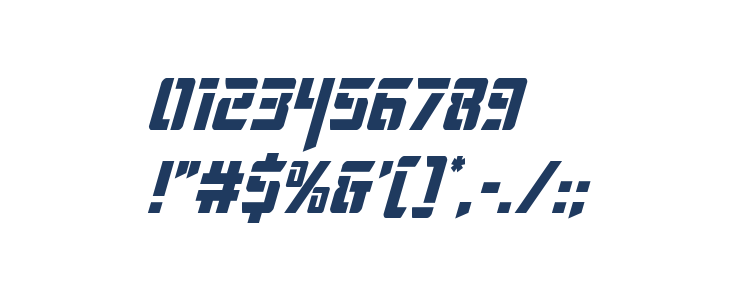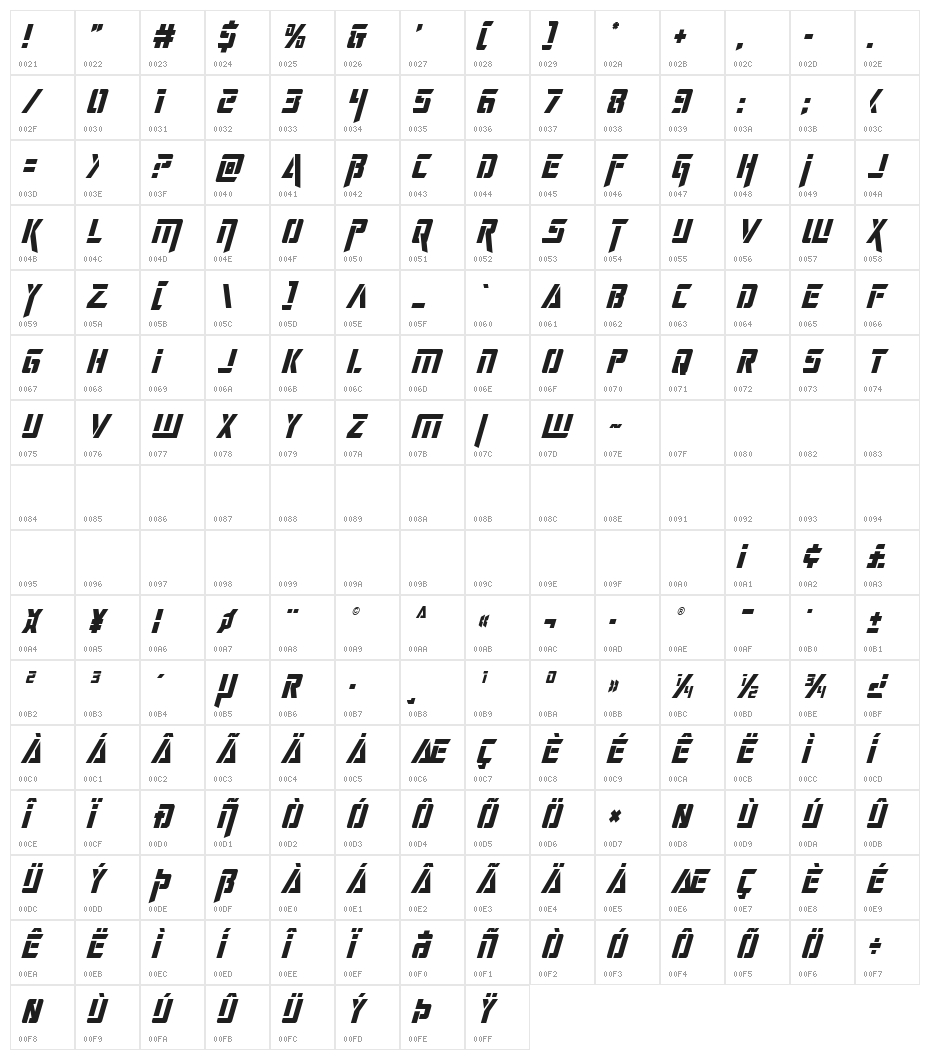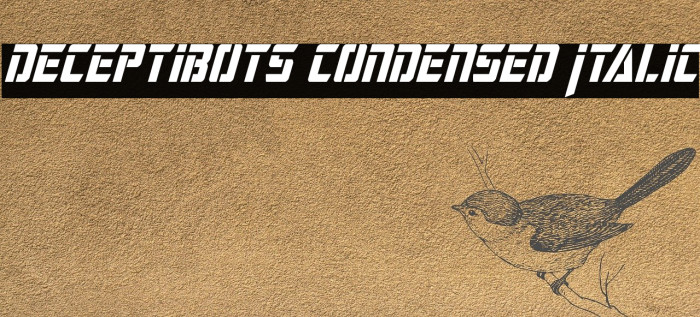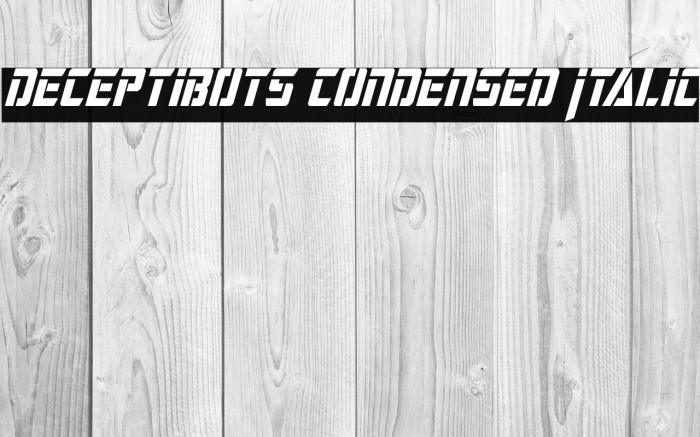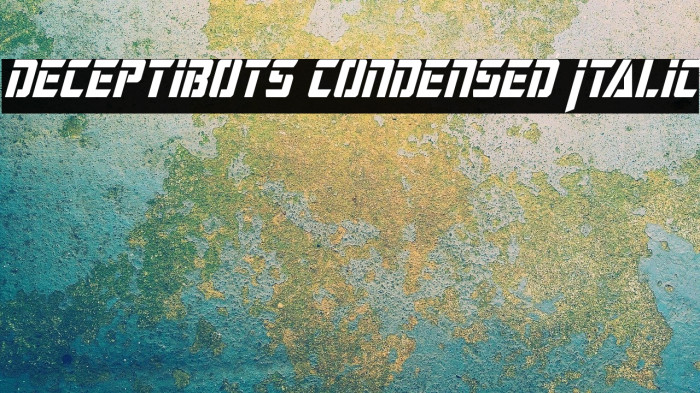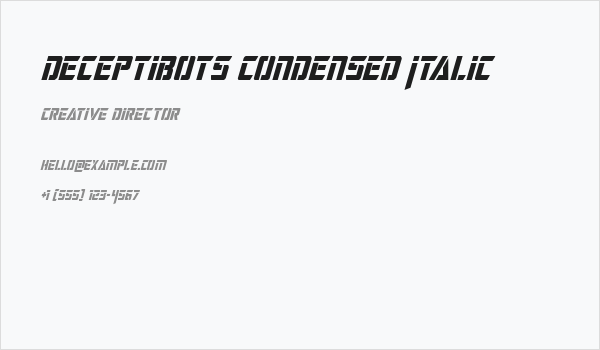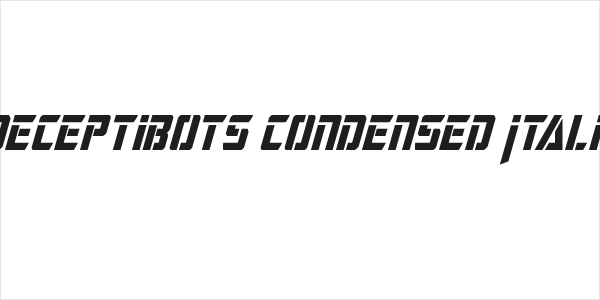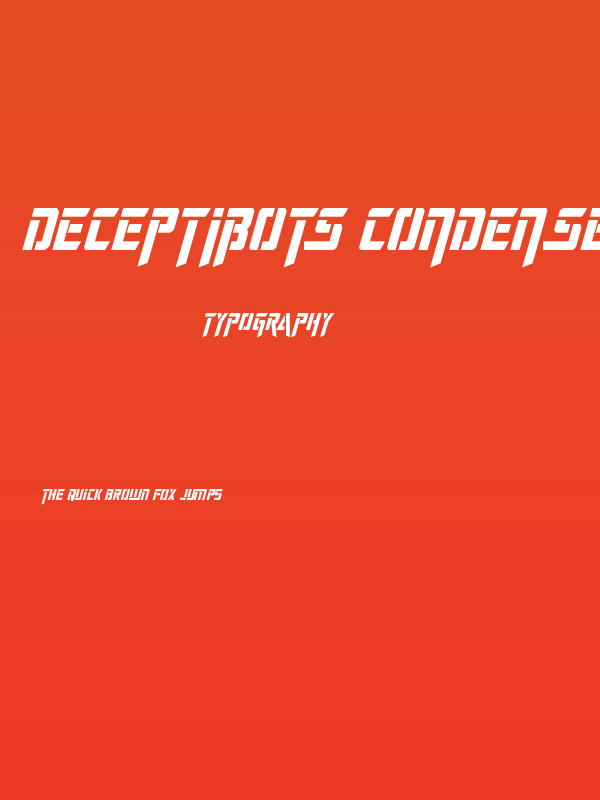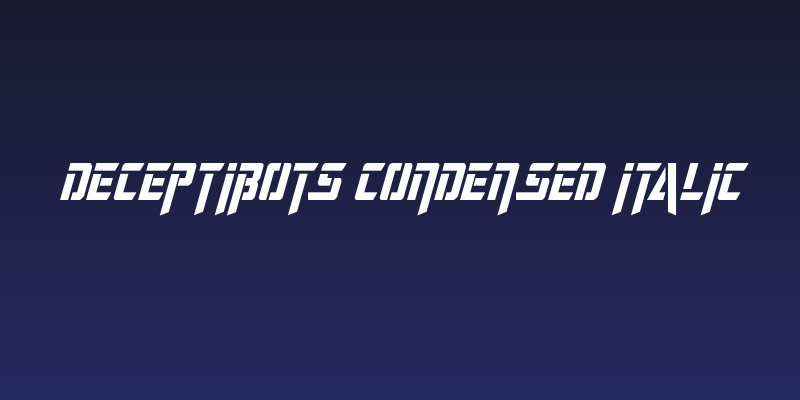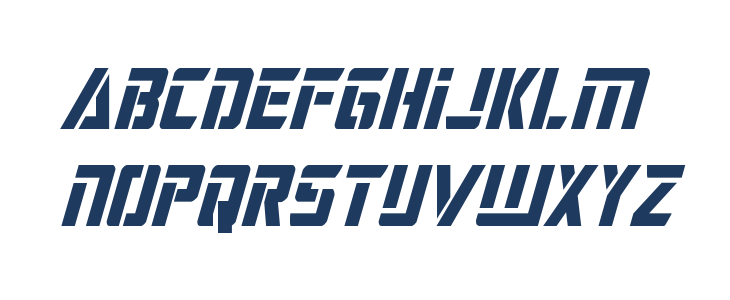
Deceptibots Condensed Italic Font
Deceptibots Condensed Italic Description
This font features a bold, futuristic design with sharp, angular lines and a condensed form. The italic style adds a dynamic, forward-leaning appearance, enhancing its modern and edgy aesthetic. Each character is crafted with precision, maintaining a consistent stroke width that emphasizes its geometric structure. The uppercase and lowercase letters share a cohesive design, while the numerals and special characters complement the overall style. This font's distinctive look makes it ideal for projects that require a strong, impactful visual presence.
| Proposed Projects | Ideal for sci-fi themed designs, video game titles, tech branding, and dynamic posters. |